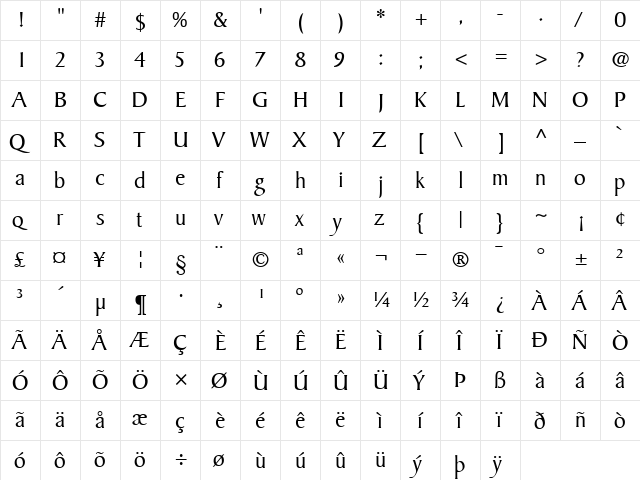
BakerSignet Roman
Design Context for BakerSignet Typeface
BakerSignet offers clean, dependable letterforms without strong stylistic allegiance, making it a practical choice for designers who need flexibility.